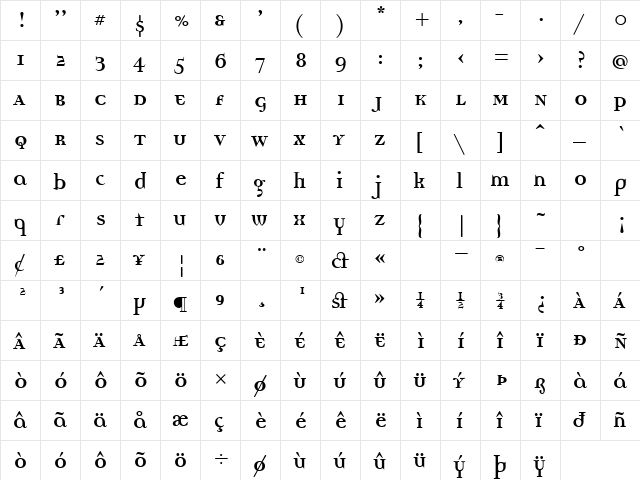
DemocraticaBoldOldstyle Bold
Design Context for DemocraticaBoldOldstyle Typeface
DemocraticaBoldOldstyle brings classic typographic sensibility to the table — its serifs and measured letterforms reflect centuries of print heritage. The heavy weight commands attention and anchors typographic hierarchies.